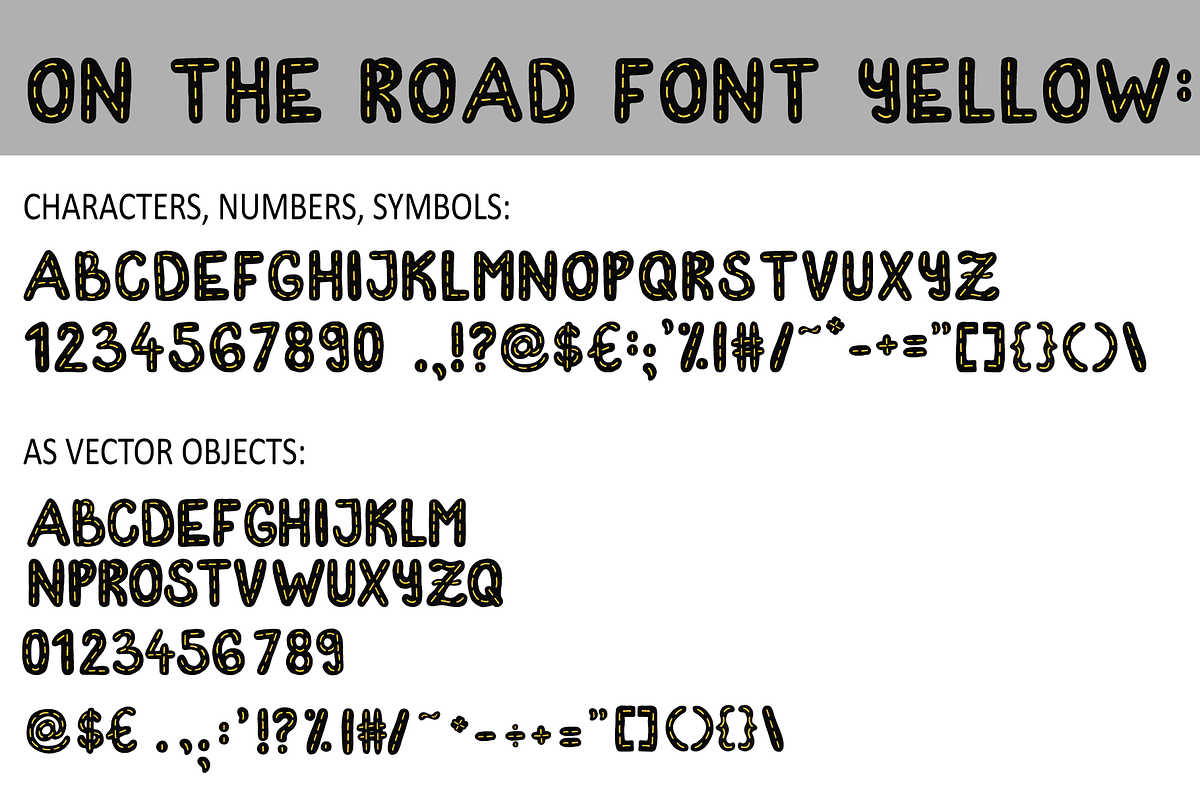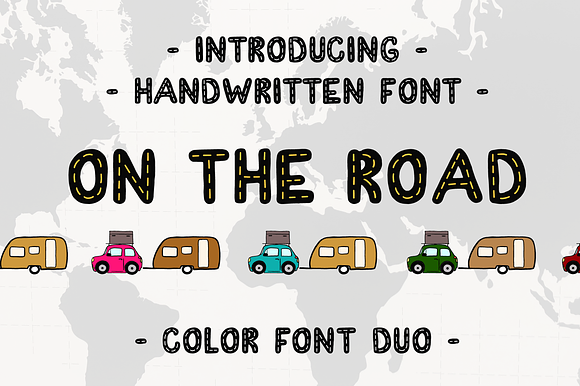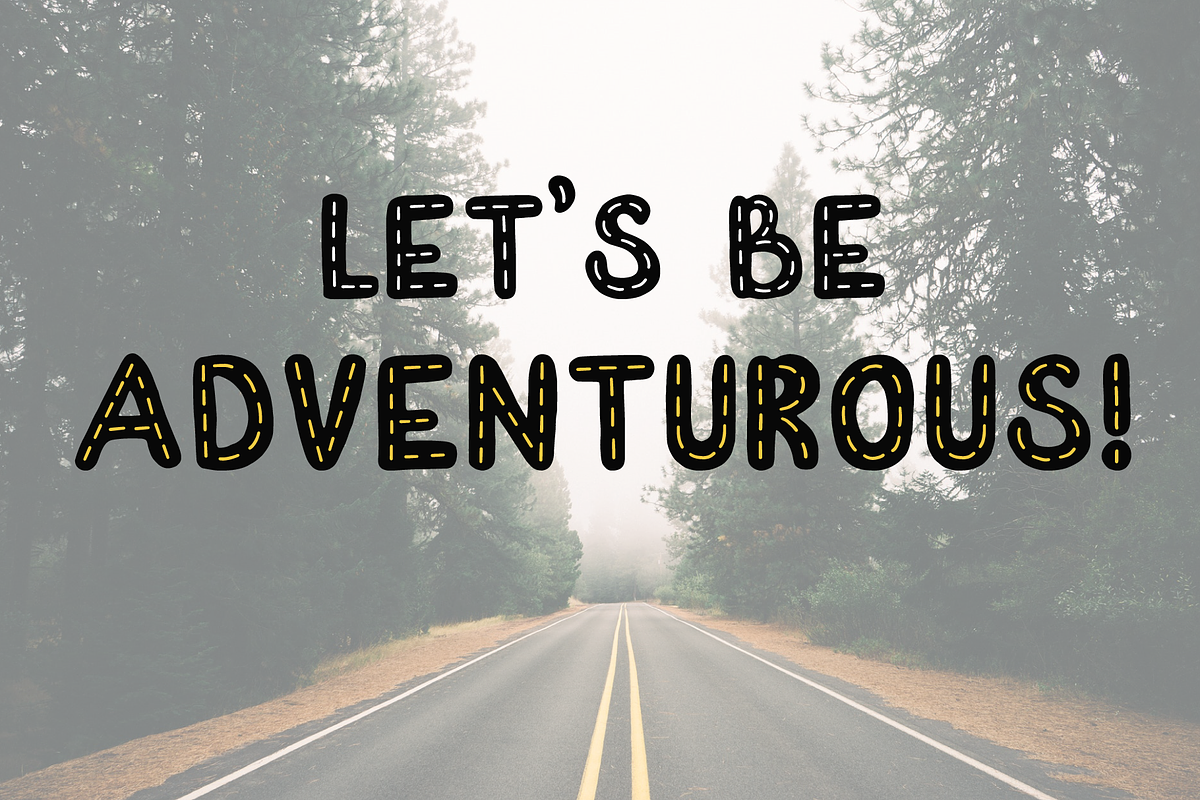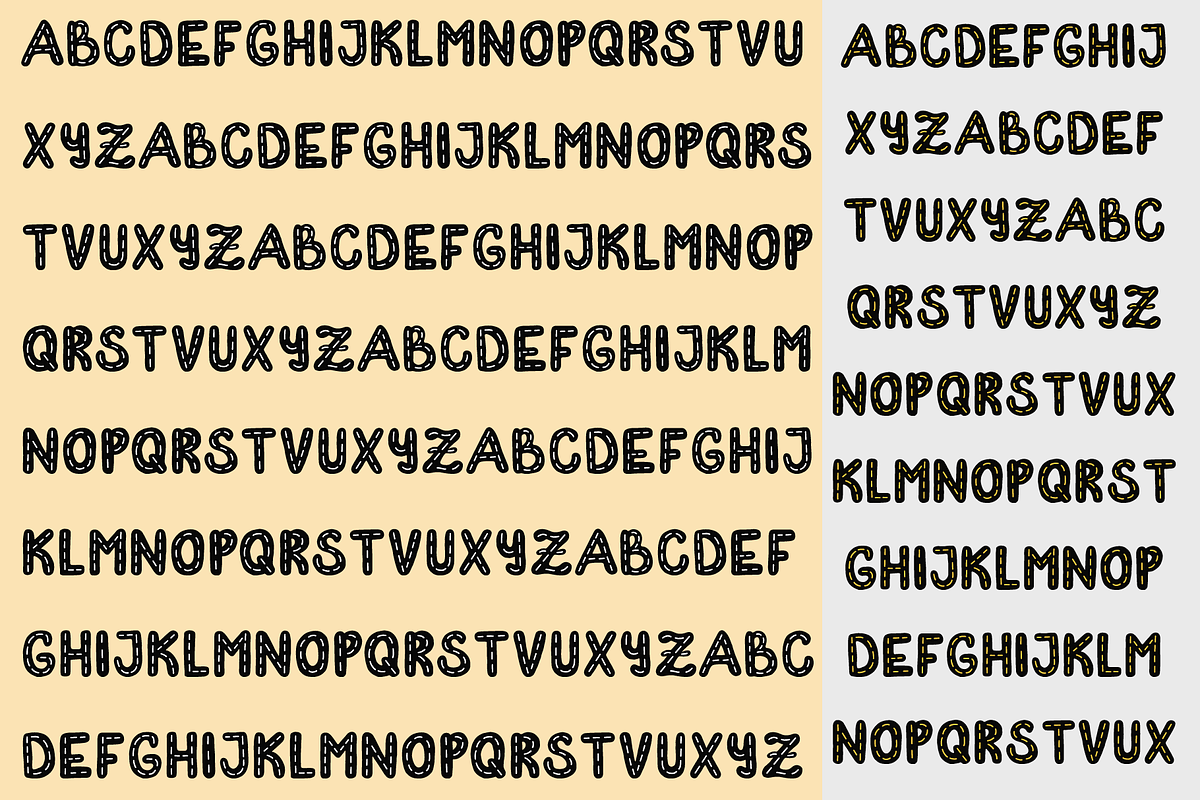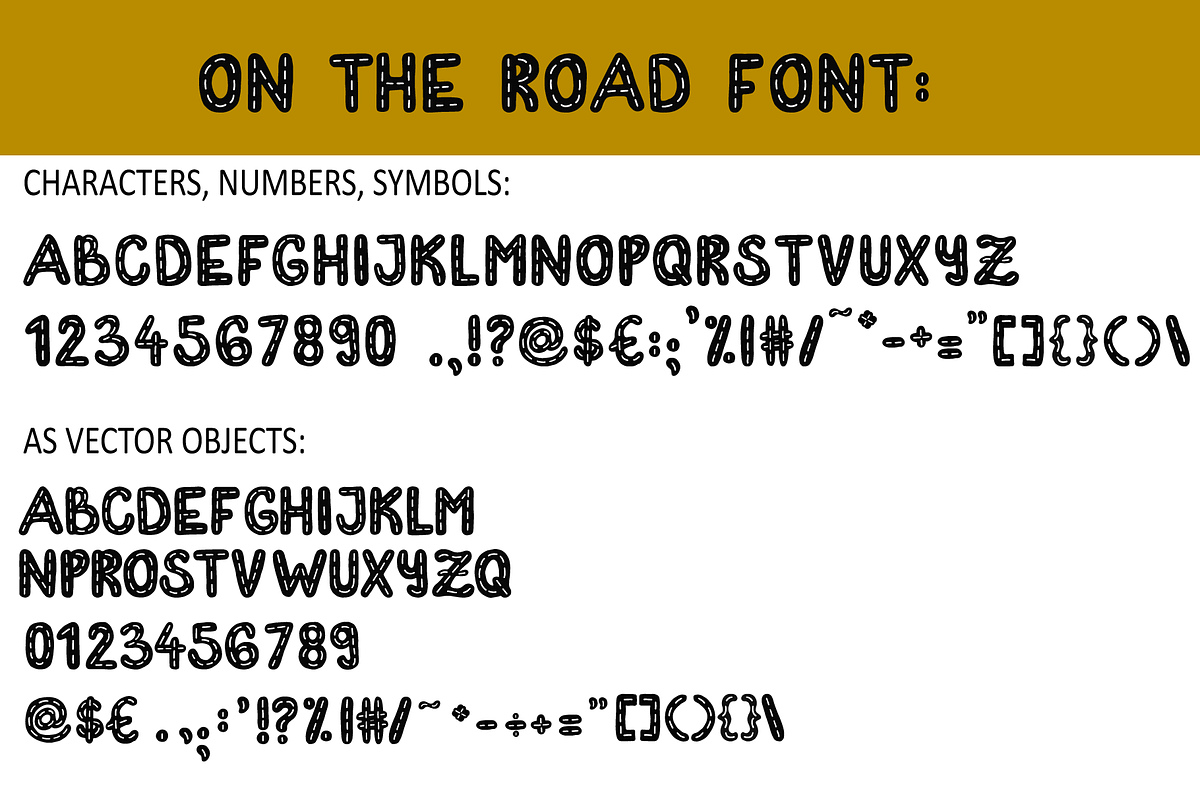
On The Road OpenType-SVG Font
Hello guys, I am glad to present you my handwritten all caps font duo On The Road Font with interesting road pattern. It can be perfect for your journals, trips, travel diaries, videos and many other travel experiences.
- FONT On The Road is available in 2 styles:
- OnTheRoad (OTF) - black and white regular road pattern font
- OnTheRoad Yellow (OTF) - colorful yellow road pattern font